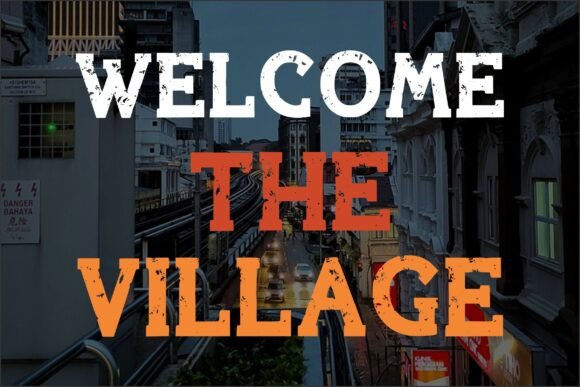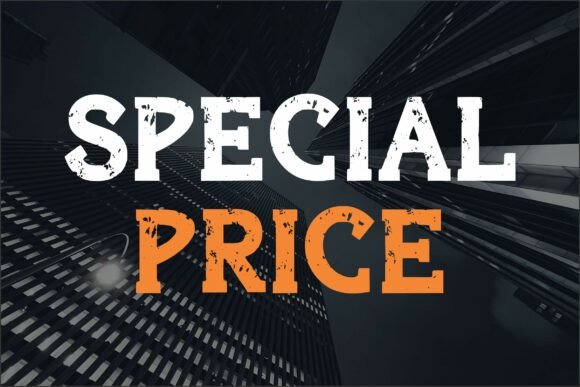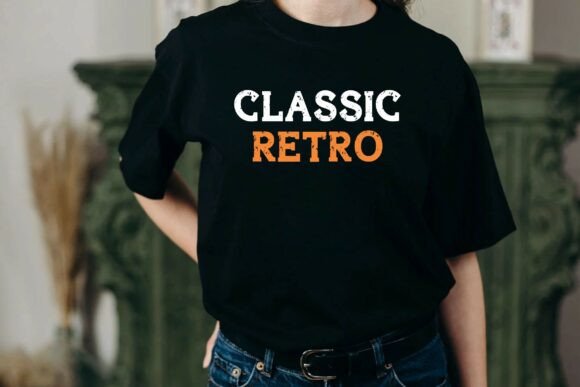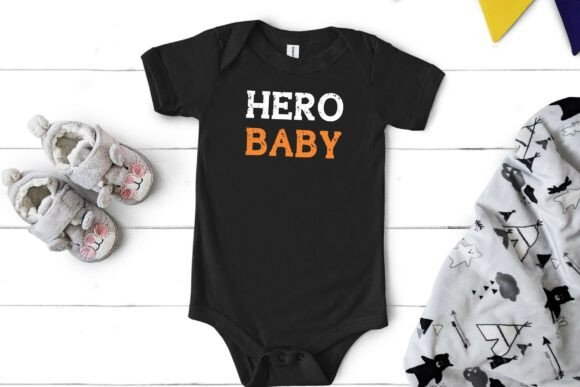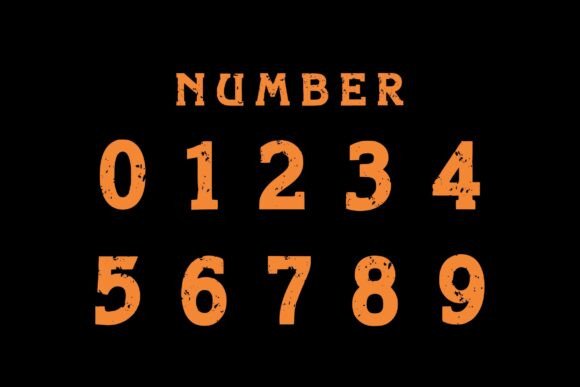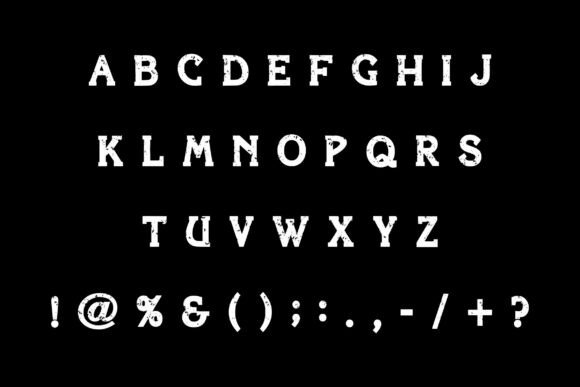
Unleash the Dark Energy of Gotham Retro Font
Have you ever been in the middle of a design project, and suddenly, it feels like something’s missing? You’re not quite sure what it is, but you know it’s not quite right. I recall a project where I was tasked with creating a movie poster for a neo-noir film. I had the concept, the color palette, and the imagery, but it just didn’t have that punch I was looking for. That’s when I stumbled upon the Gotham Retro Font. It was like a bolt of lightning – it added that gritty, dark, and powerful energy that my design desperately needed.
What Makes Gotham Retro Font Stand Out?
Gotham Retro Font is more than just a typeface; it’s an experience. With its bold, condensed structure and a textured, distressed finish, it captures the essence of a retro-futuristic urban landscape. It’s perfect for projects that demand attention, such as movie posters, game covers, striking headlines, t-shirt designs, and branding that needs an edgy, industrial, or mysterious feel.
- ✨ High-impact aesthetic: Gotham Retro Font delivers a striking, gritty feel that’s perfect for projects that need to stand out.
- ✅ Versatility: It’s suitable for a wide range of projects, from movie posters to t-shirt designs.
- 🔥 Unique texture: The distressed finish adds a layer of depth and character to your designs.
- 🤔 Legibility at small sizes: Due to its condensed structure and distressed texture, it may be challenging to read at very small sizes.
- ⚠️ Limited use in formal contexts: The font’s bold and distressed nature makes it less suitable for formal or traditional projects.
- Take advantage of OpenType features, such as glyphs and stylistic alternates, to add variety to your text.
The Backstory of Gotham Retro Font
The inspiration behind Gotham Retro Font comes from the classic neo-noir films and retro-futuristic visions of the past. Imagine a gritty, dark metropolis with a sense of mystery and intrigue. This font embodies that spirit, making it perfect for projects that require a bold, attention-grabbing aesthetic.
Q: What type of projects is Gotham Retro Font best suited for?
A: Gotham Retro Font is ideal for projects that demand a bold, gritty aesthetic, such as movie posters, game covers, t-shirt designs, and edgy branding.
Q: Can I use Gotham Retro Font for body text?
A: While it’s possible, Gotham Retro Font’s bold and distressed nature makes it more suitable for headlines and titles. For body text, consider a cleaner, more readable font.
Q: Is Gotham Retro Font available in different weights?
A: The standard version of Gotham Retro Font comes in a single weight. However, you can experiment with adjusting the font size and style to achieve different effects.